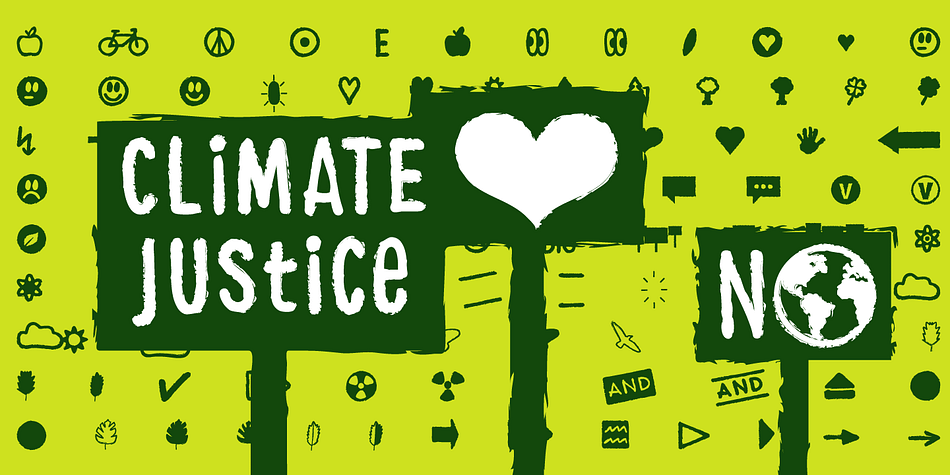
Climate Icon
Designed by Manuel Viergutz, Climate Icon is a dingbat font family published by Typo Graphic Design.
The typeface Climate Icon Font is designed from 2023/2024 for the font foundry Typo Graphic Design by Manuel Viergutz as a political statement & for support the type community. THX to CreativesForFuture.de
The Display font is a collection with 100+ vector icons & slogans for the next demonstration. ????
■ Font Name: Climate Icon Font
■ Font Cate­gory: Display Font for head­line size
■ Glyph Set: 100+ glyphs (dingbats/icons)
■ Design Date: 2023/2024
■ Type Desi­gner: Manuel Viergutz